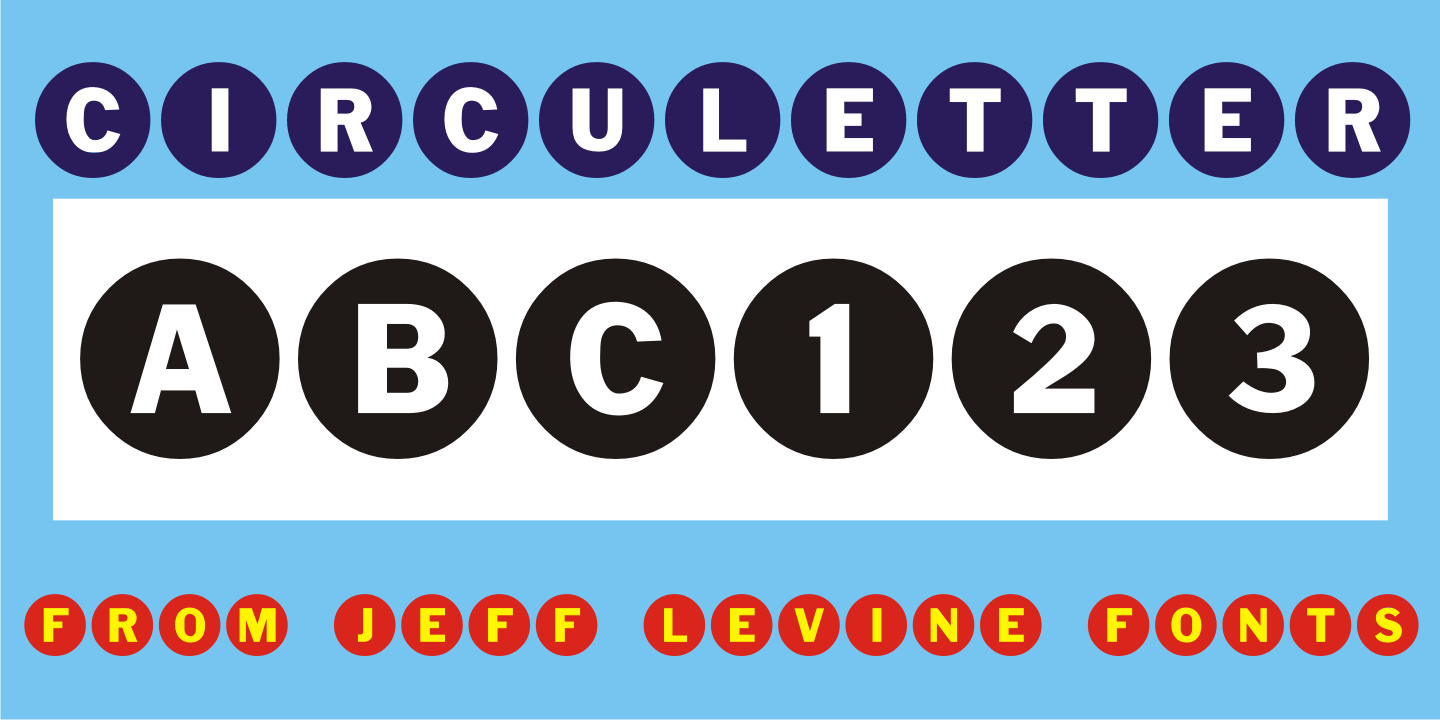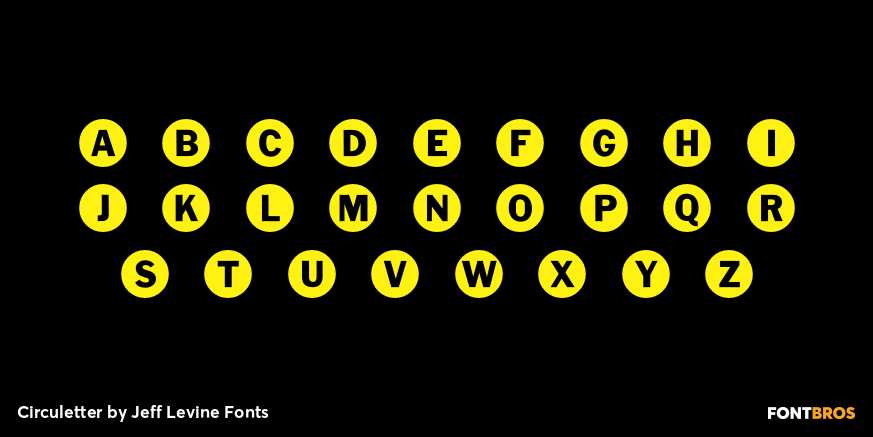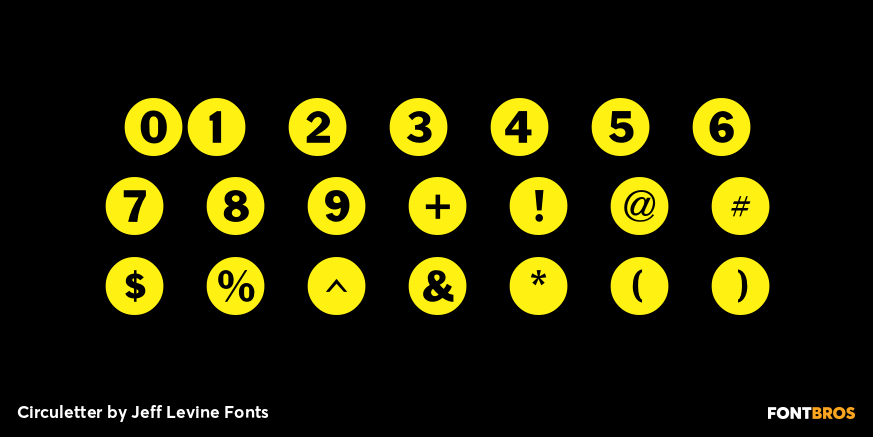
Circuletter
Letters in circles are certainly nothing new typographically, but nonetheless they were a favorite tool for sign makers in past decades for emphasizing names or key words in a message.
Inspired by an image of an old-time hardware store sign in New York City with Franklinesque lettering, it has been reproduced as Circuletter JNL.